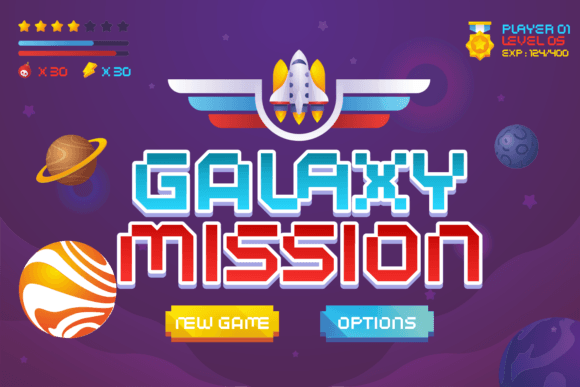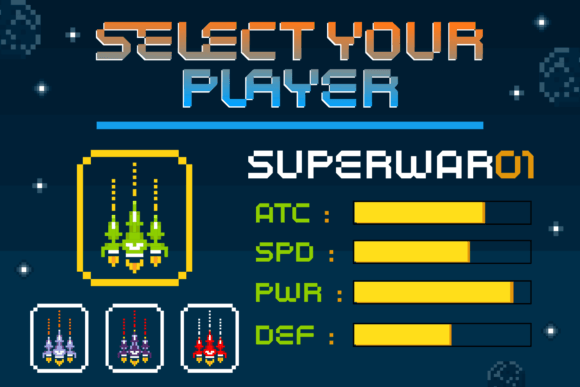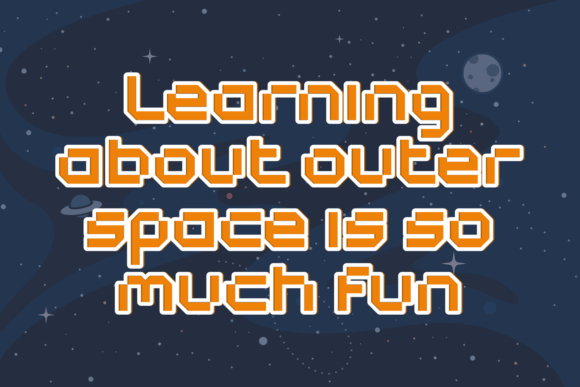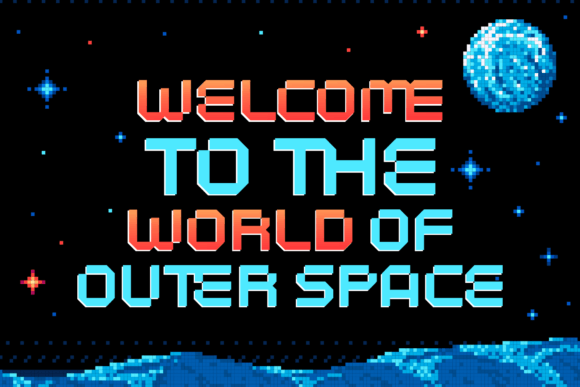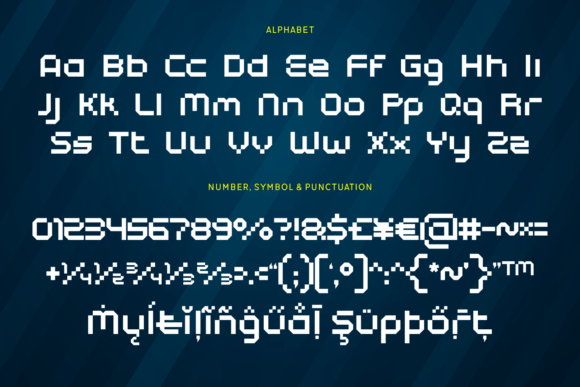
Getting Started with Pixel Machine Font
Who hasn’t felt that rush of nostalgia while playing classic video games? The pixelated graphics, the chiptune soundtracks, and the retro charm that comes with it. For designers, this nostalgic feeling can be a valuable resource. It’s the perfect starting point for a creative project that requires a high-quality design resource with a touch of retro-cool.
That’s where the Pixel Machine Font comes in – a playful and eye-catching display font that emulates the look of old-school video games. With its vibrant colors and pixelated design, each letter pops with personality and charm, making it perfect for gaming, digital designs, and branding projects.
Key Features of Pixel Machine Font
Honest Review: Pixel Machine Font
I recently stumbled upon the Pixel Machine Font while searching for a quirky design resource to add some personality to a creative project. I was blown away by its high quality and unique aesthetic.
- The font’s transparent background makes it easy to layer and customize in any design software.
- The Pixel Machine Font’s bold, pixelated style is perfect for adding a retro vibe to any creative project.
The font’s versatility and high quality make it a great addition to any design library.
- The font’s pixelated style may not be suitable for all design projects, particularly those requiring a more subtle or professional aesthetic.
- The font’s bold style can be overwhelming in certain contexts, so be sure to use it judiciously.
Overall, the Pixel Machine Font is a fantastic design resource for designers looking to add some personality and creativity to their projects. With its high quality and versatility, it’s definitely worth checking out.
Tips for Getting the Most Out of Pixel Machine Font
For a creative project, consider using Pixel Machine Font in combination with other design elements, such as graphics and images, to create a unique and eye-catching design. You can also experiment with different font sizes and colors to achieve a high-quality design.
Common Use Cases for Pixel Machine Font
Pixel Machine Font is a versatile design resource that can be used in a variety of creative projects, including logos, graphics, and digital art. It’s also a great choice for free download, making it accessible to designers of all skill levels.